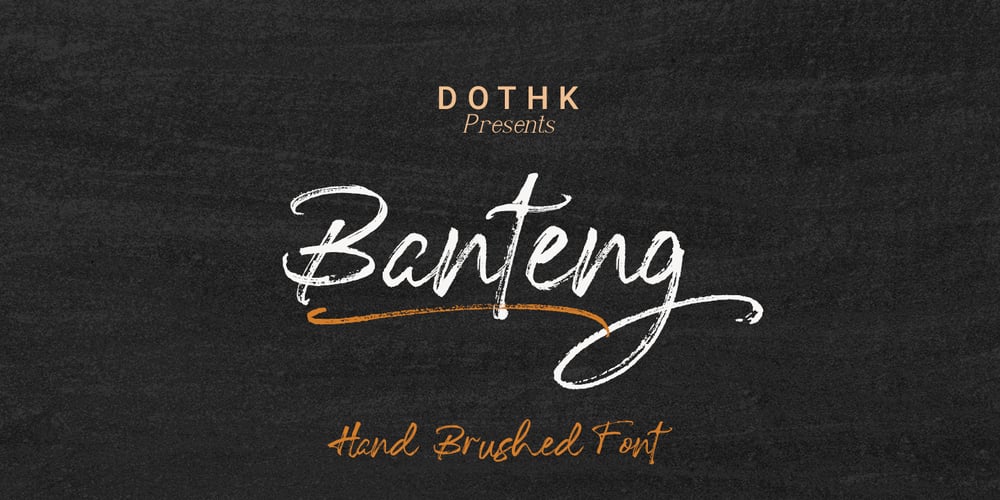
Banteng
Banteng font
Banteng Font Family was designed by Ariefr Munandar and published by dotHK Studio. Banteng contains 1 styles and family package options. Banteng is a cool brushed handwritten font, organic and interesting looking. Masterfully designed to become a true favorite, this font has the potential to bring each of your creative ideas to the highest level.Include OpenType alternates and common ligatures. Ideal for logos, name tag, handwritten quotes, product packaging, merchandise, social media & greeting cards.Try the alternates and ligatures to give your designs looks good, fresh, casual, stylish, and modern.